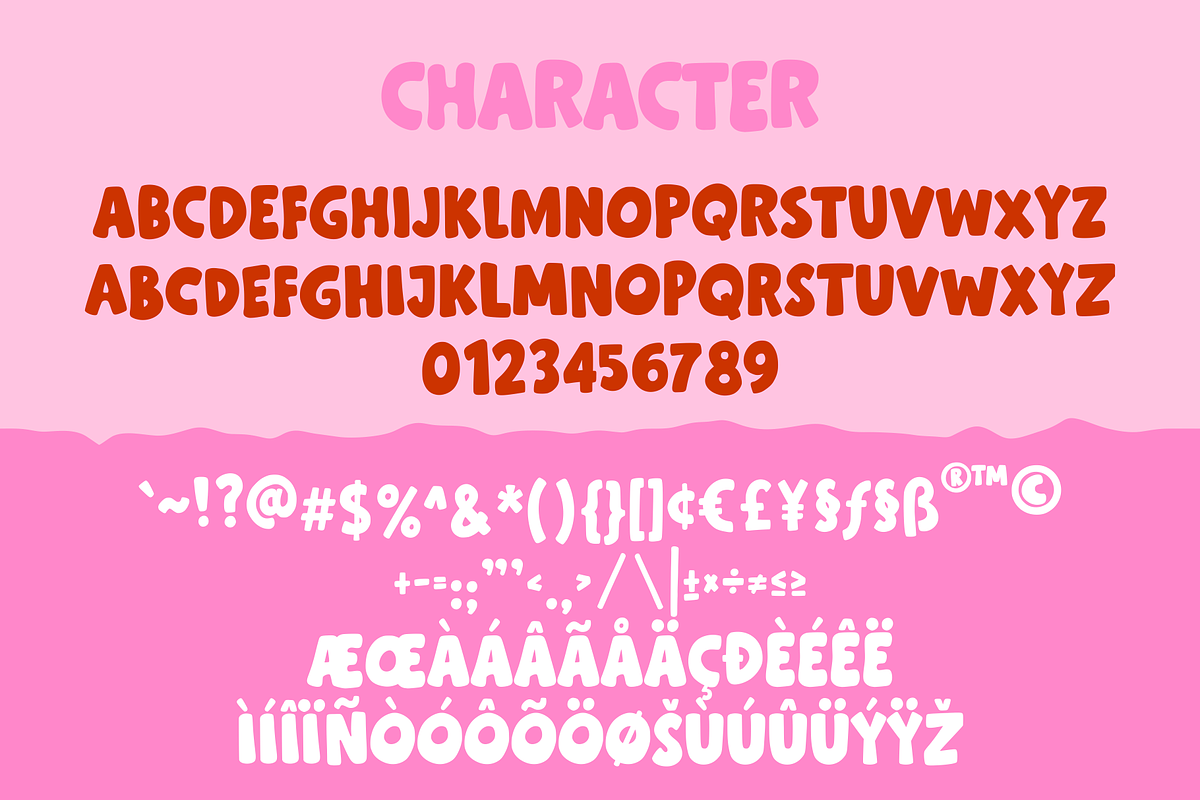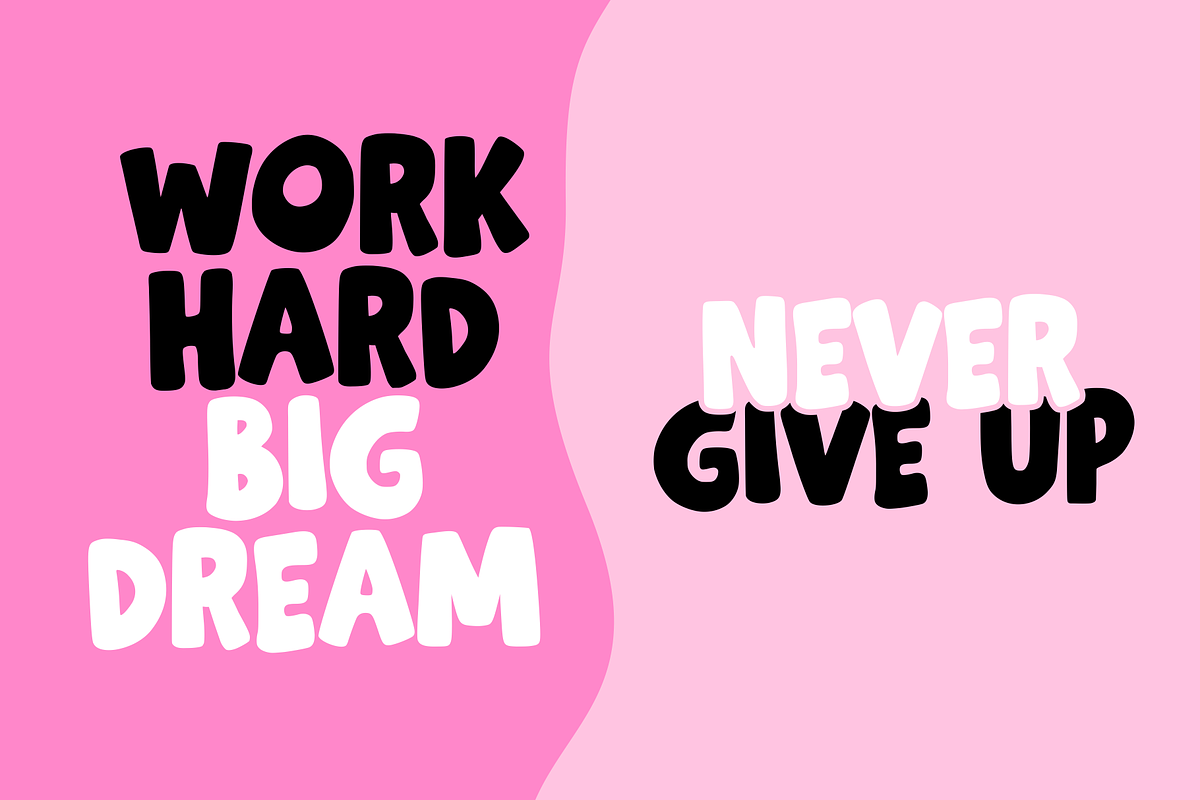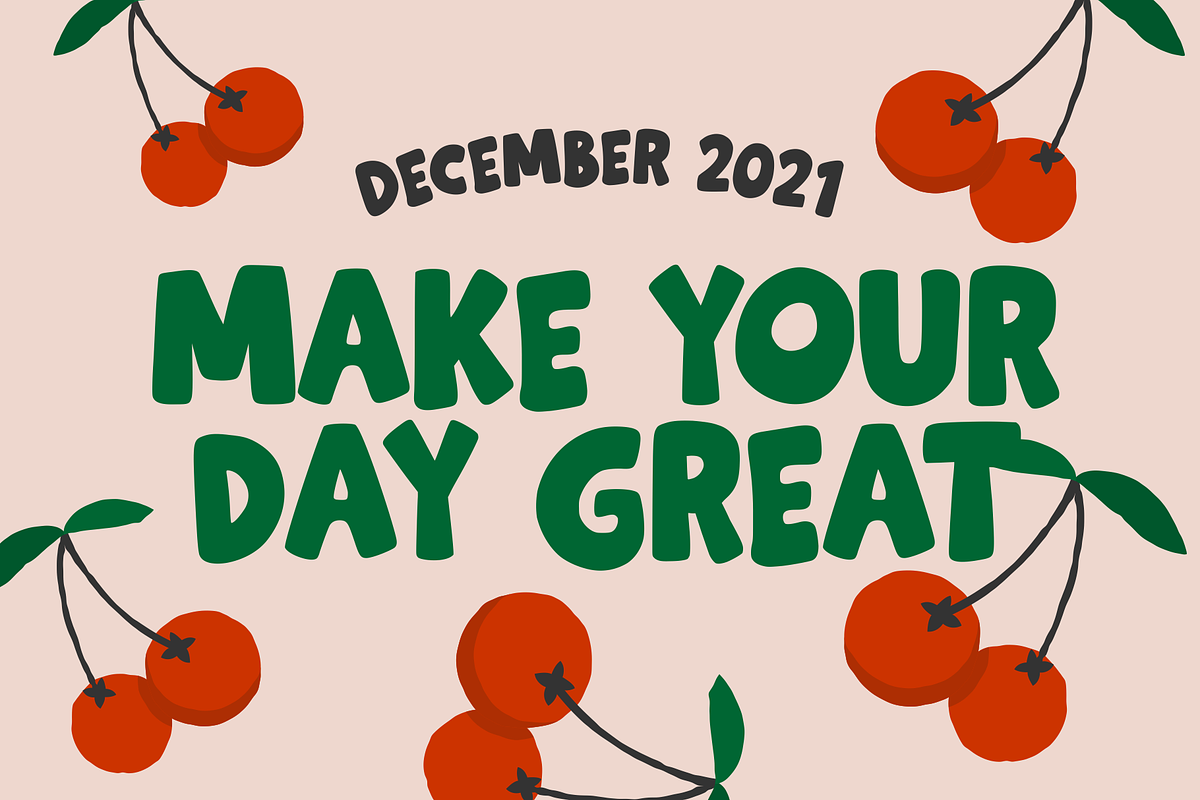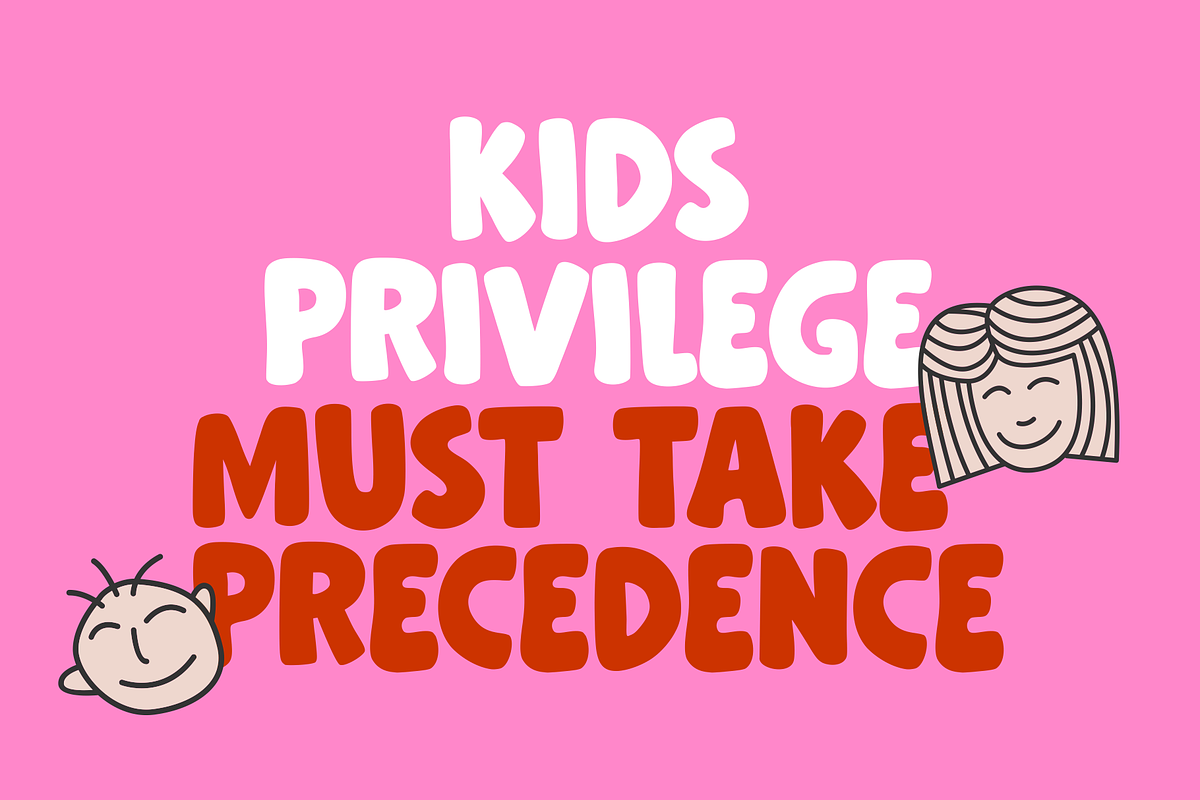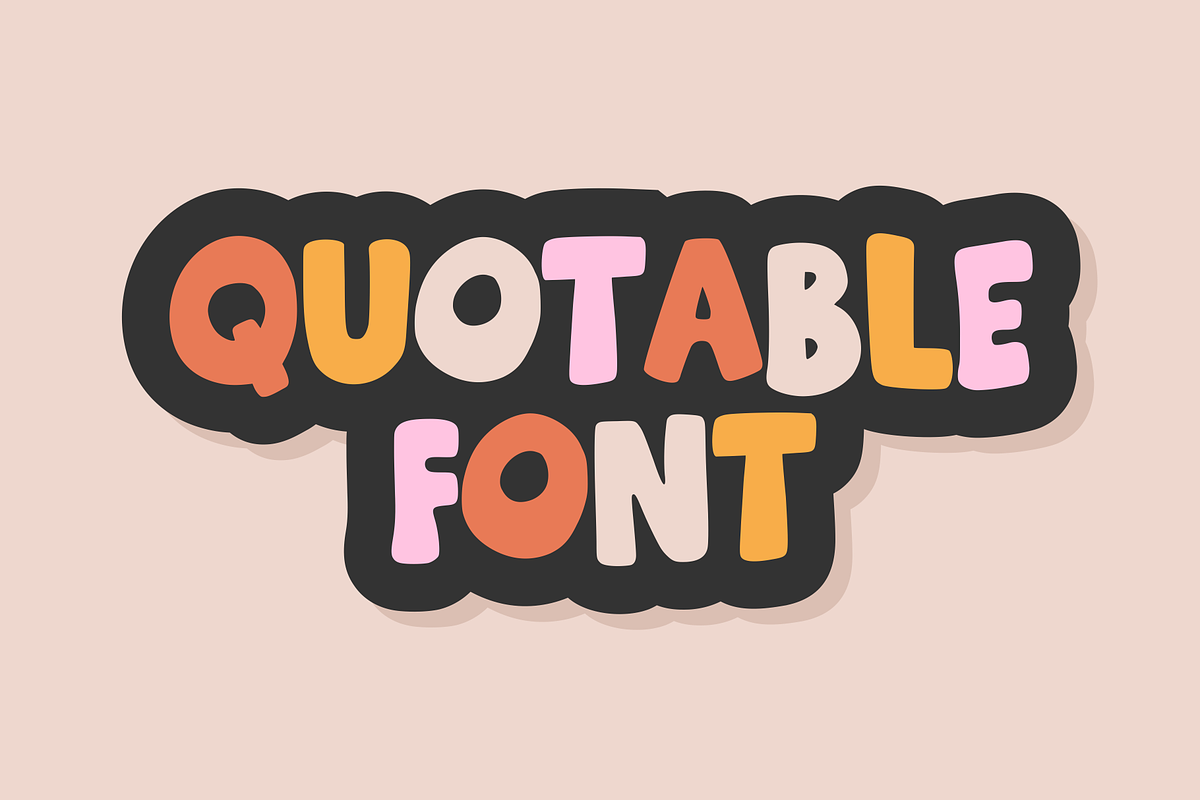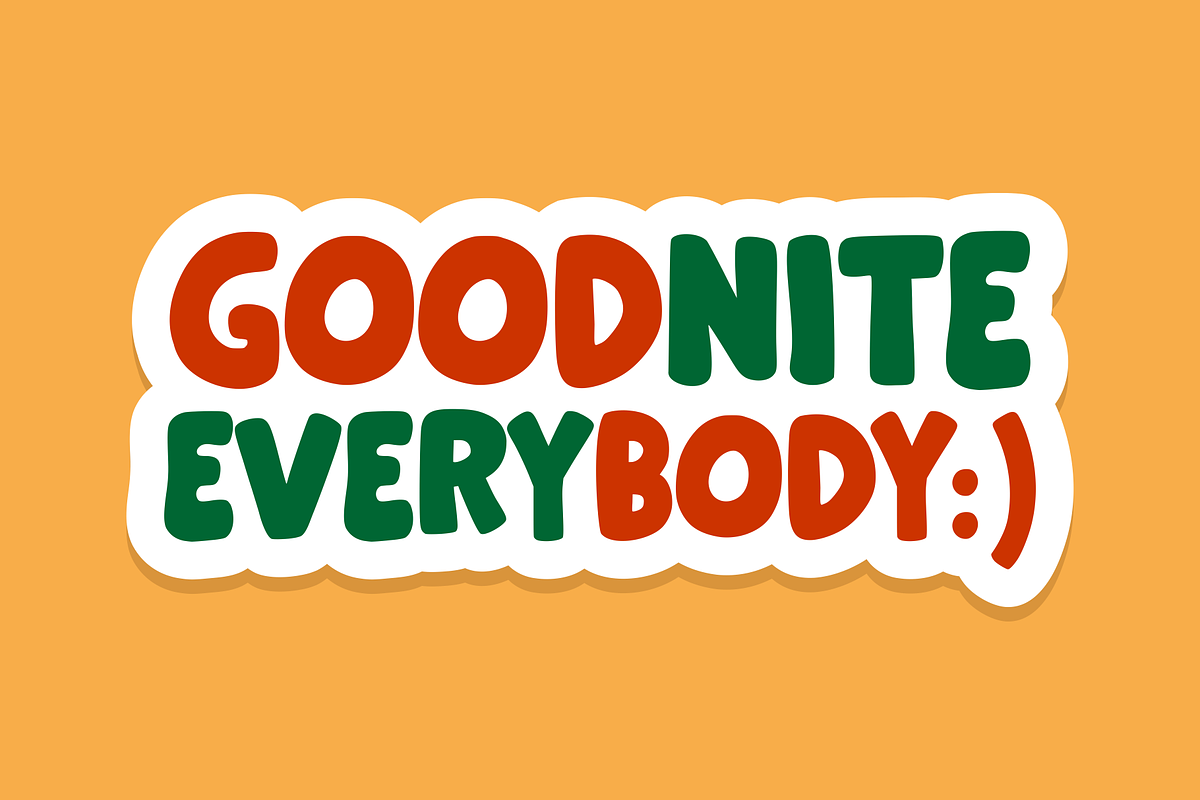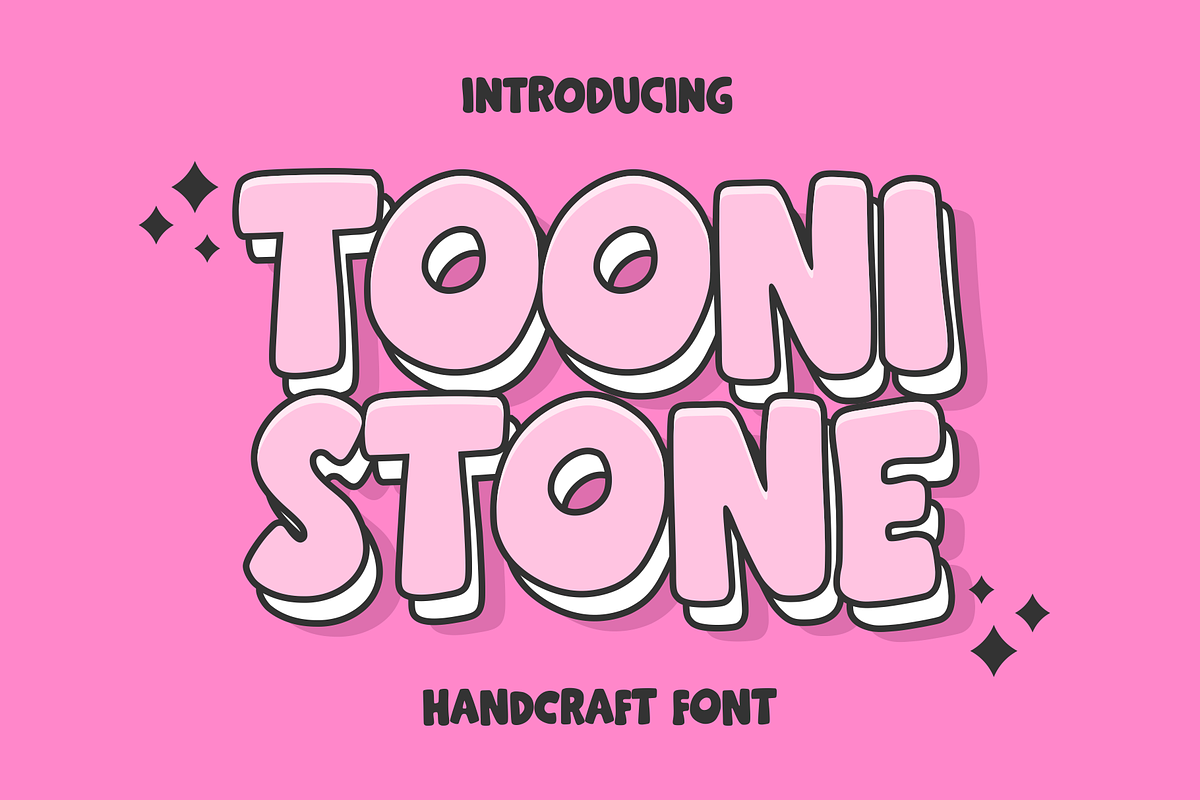
Toonistone Handcraft
Cute font with children's characteristics and bold, suitable for designs related to children, such as story book titles, posters, children's illustrations and others.
- Uppercase - Lowercase
- Numeral
- Symbol
- Multilingual Support ÆŒÀÁĂÂÄĄÅÃĀǼĆČÇĈĊĎÐÈÉĔĚÊËĖĒĘĞĜĢĠĤĦÌÍĬÎÏİĮĪĨĴĶĹĽĻĿŁŃŇŅÑŊÒÓŎÔÖŐØǾÕŌŔŘŖ ŚŠŞŜȘŤŢŦÙÚŬÛÜŰŲŮŪŨẀẂŴẄỲÝŶŸŹŽŻ